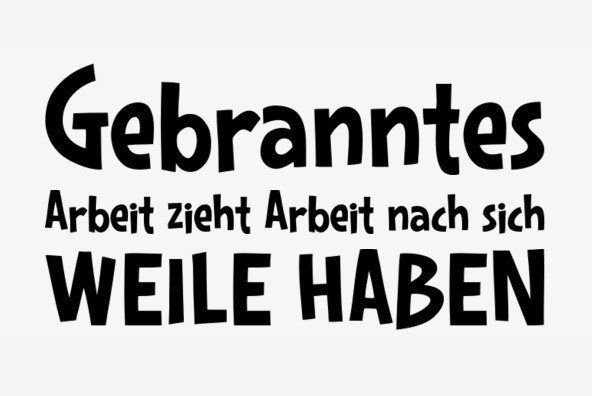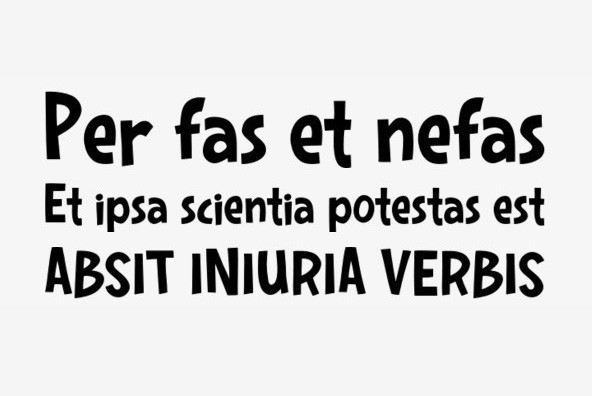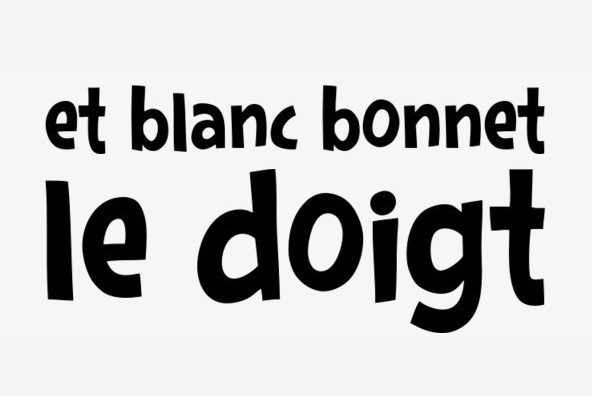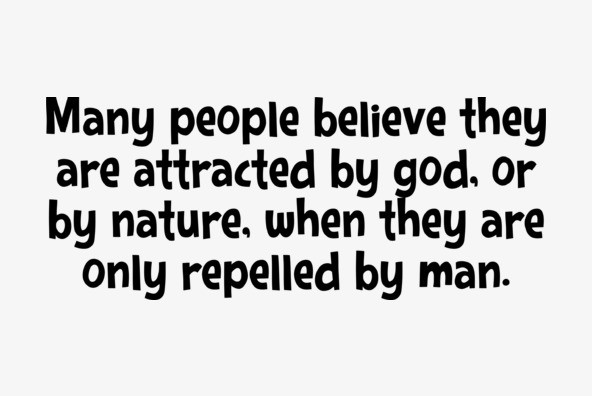
Yet another zippy new cartoon font from Squid & Sideshow! Squidtoonz is a bouncy little number ready for title, text, word balloon, or anywhere you need a fun, casual look. Based on Squid's hand-lettering, Squditoonz comes in regular and bold weights. Squidtoonz also comes complete with a nice variety of alternate letterforms accessible via OpenType.